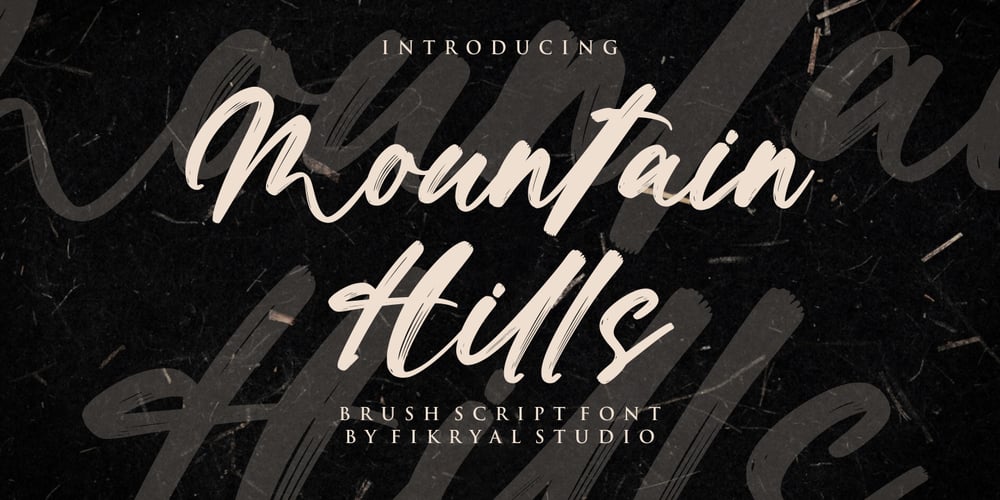
Mountain Hills
Mountain Hills font
Mountain Hills Font Family was designed by Muhammad Fikry and published by Fikryal. Mountain Hills contains 1 styles and family package options. Mountain Hills is a hand brush font perfect for crafting, branding, invitation, stationery, wedding designs, social media posts, advertisements, product packaging, product designs, label, photography, watermark, special events, or anything.Mountain Hills comes with a full set of uppercase and lowercase letters, ligatures, multilingual symbols, numerals, and punctuation.